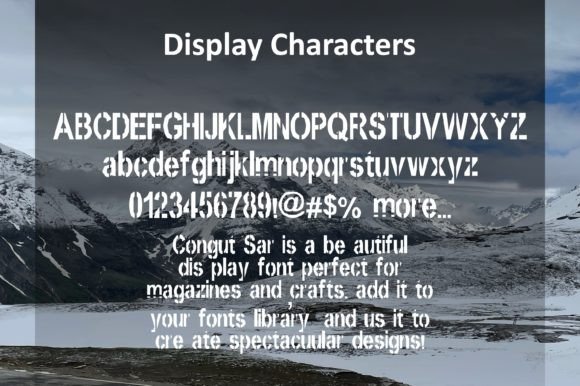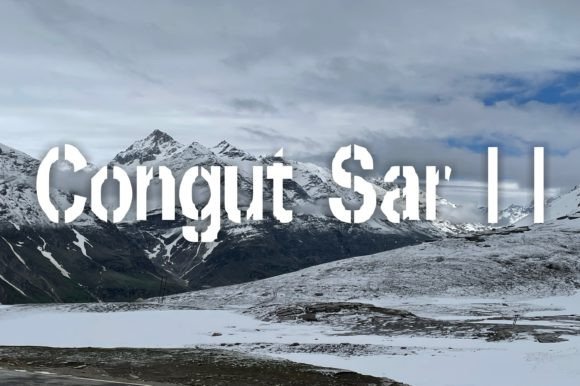
Congut Sar Ii Font: The Ultimate Guide to This Quirky Display Font
Congut Sar II is a cool and quirky display font that can add a touch of uniqueness to your crafty ideas. With its distinctive style, this font is sure to make your designs stand out from the crowd. In this article, we’ll dive into the world of Congut Sar II, exploring its features, uses, and benefits for designers and crafters.
What is Congut Sar II?
Congut Sar II is a display font designed to make a statement. Its quirky and playful style makes it perfect for adding a touch of personality to your designs. Whether you’re working on a DIY project, creating social media graphics, or designing a logo, Congut Sar II is an excellent choice.
Features of Congut Sar II
Congut Sar II boasts several features that make it a versatile and fun font to work with:
• Unique lettering style: Congut Sar II has a one-of-a-kind lettering style that’s both quirky and charming.
• Display font: This font is designed specifically for display purposes, making it perfect for headlines, titles, and short phrases.
• Easy to read: Despite its quirky style, Congut Sar II is surprisingly easy to read, even at smaller sizes.
• Multilingual support: This font supports multiple languages, making it a great choice for designers working on international projects.
Uses of Congut Sar II
Congut Sar II is a versatile font that can be used in a variety of design projects, including:
• DIY projects: Add a personal touch to your DIY projects, such as handmade cards, gift tags, and scrapbook pages.
• Social media graphics: Use Congut Sar II to create eye-catching social media graphics, such as Facebook posts, Instagram stories, and Twitter headers.
• Logo design: This font is perfect for creating unique and memorable logos for businesses, events, or personal brands.
• Signage: Congut Sar II can be used to create eye-catching signs, posters, and flyers.
Benefits of Using Congut Sar II
So, why should you choose Congut Sar II for your design projects? Here are just a few benefits:
• Adds personality: Congut Sar II adds a touch of personality to your designs, making them more engaging and memorable.
• Stand out from the crowd: This font’s unique style ensures that your designs will stand out from the crowd.
Tips for Using Congut Sar II
To get the most out of Congut Sar II, here are a few tips to keep in mind:
• Use it sparingly: Congut Sar II is a bold font, so use it sparingly to avoid overwhelming your designs.
• Pair it with other fonts: Experiment with pairing Congut Sar II with other fonts to create visually interesting combinations.
• Experiment with colors: This font looks great in a variety of colors, so don’t be afraid to experiment and find the perfect hue for your design.
Congut Sar II is a cool and quirky display font that’s perfect for adding a touch of personality to your design projects. With its unique lettering style, ease of use, and versatility, this font is sure to become a favorite among designers and crafters. Whether you’re working on a DIY project, creating social media graphics, or designing a logo, Congut Sar II is an excellent choice. So why not give it a try and see the amazing results for yourself?